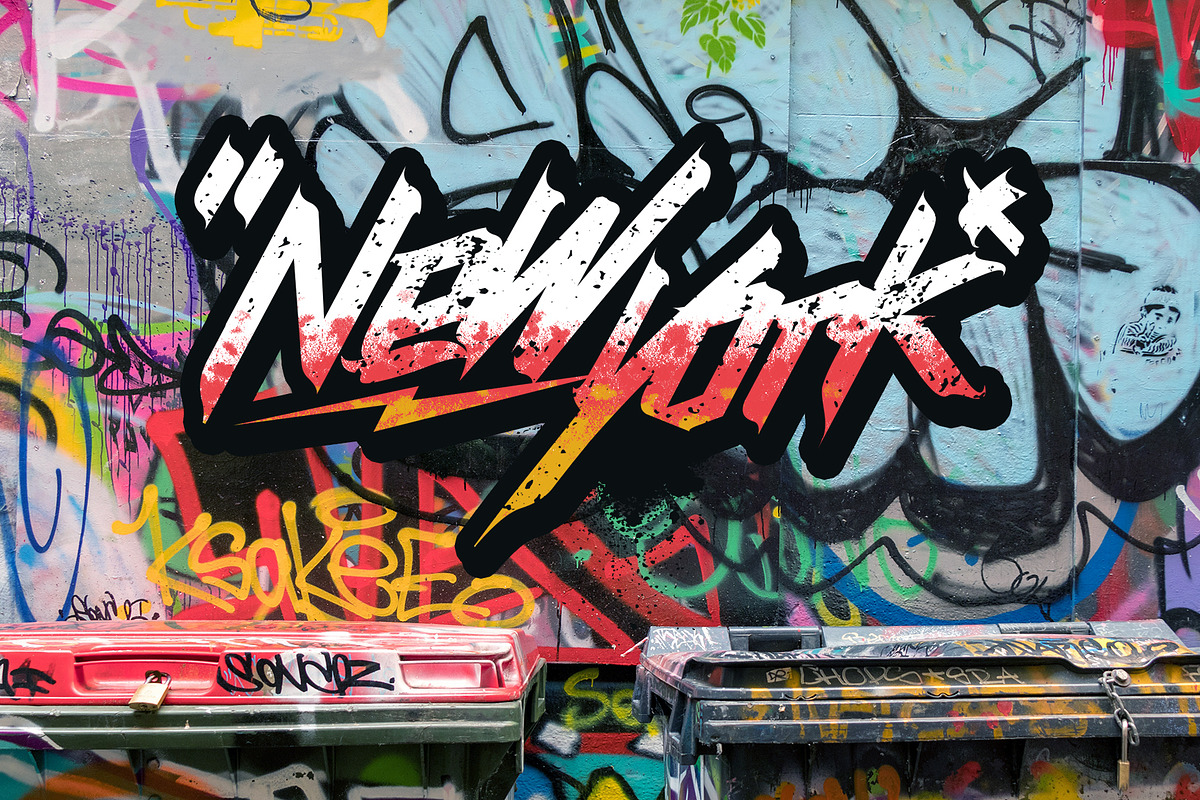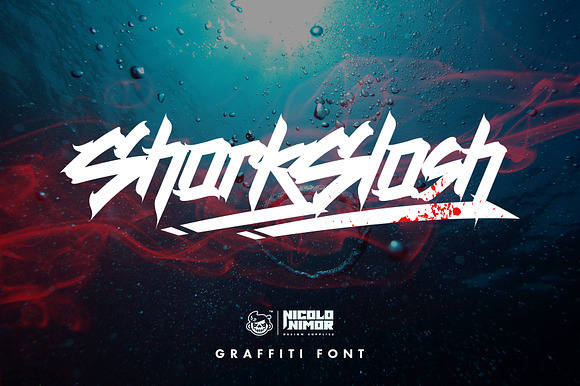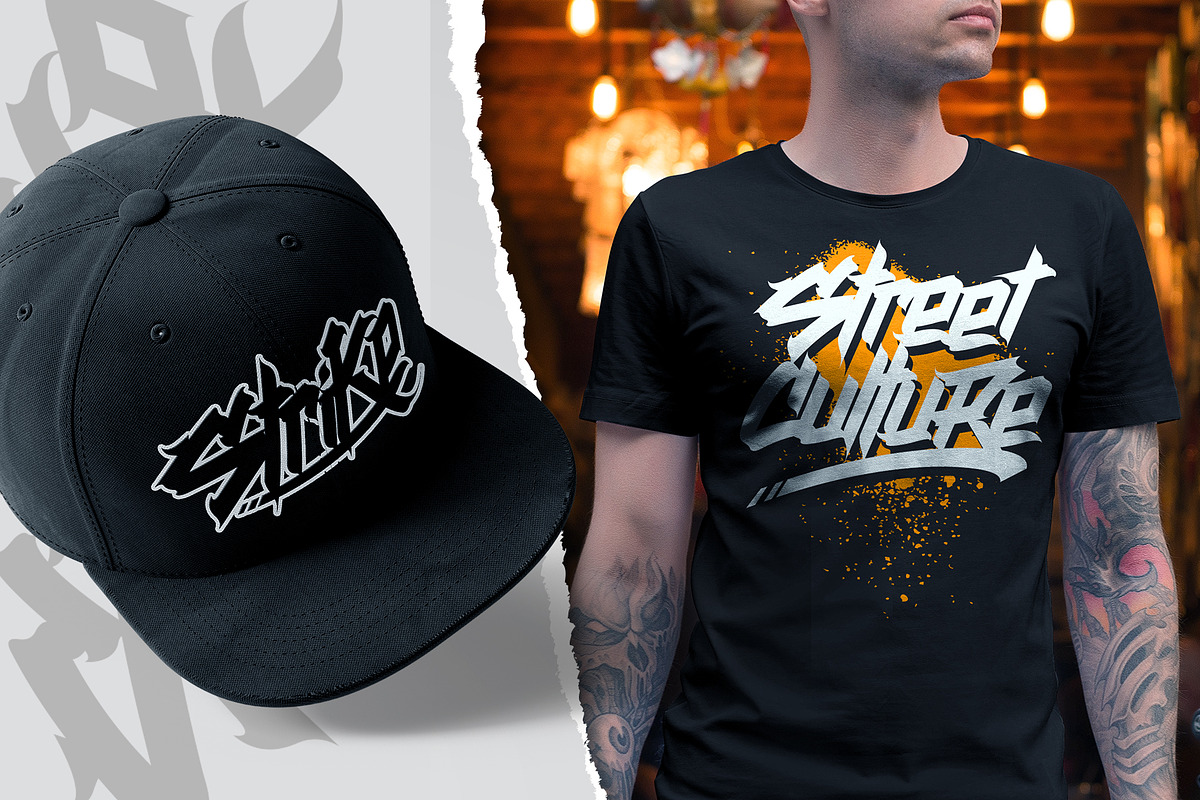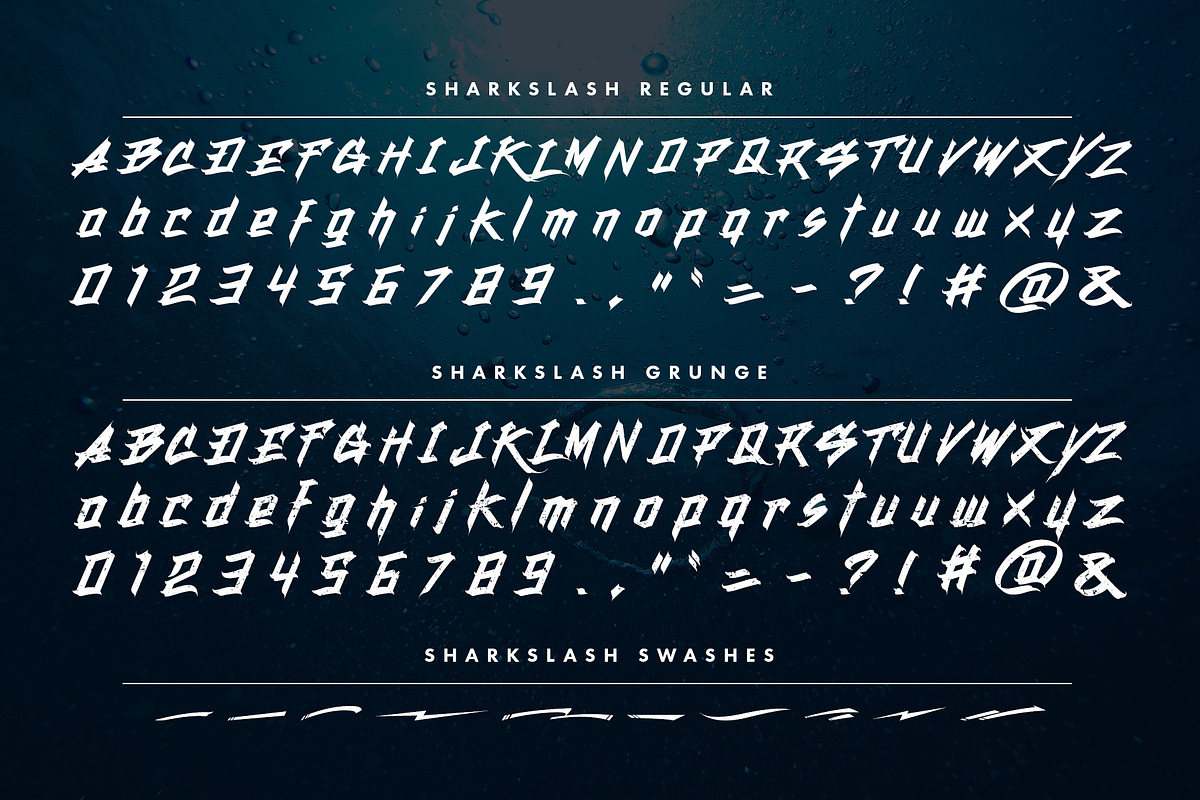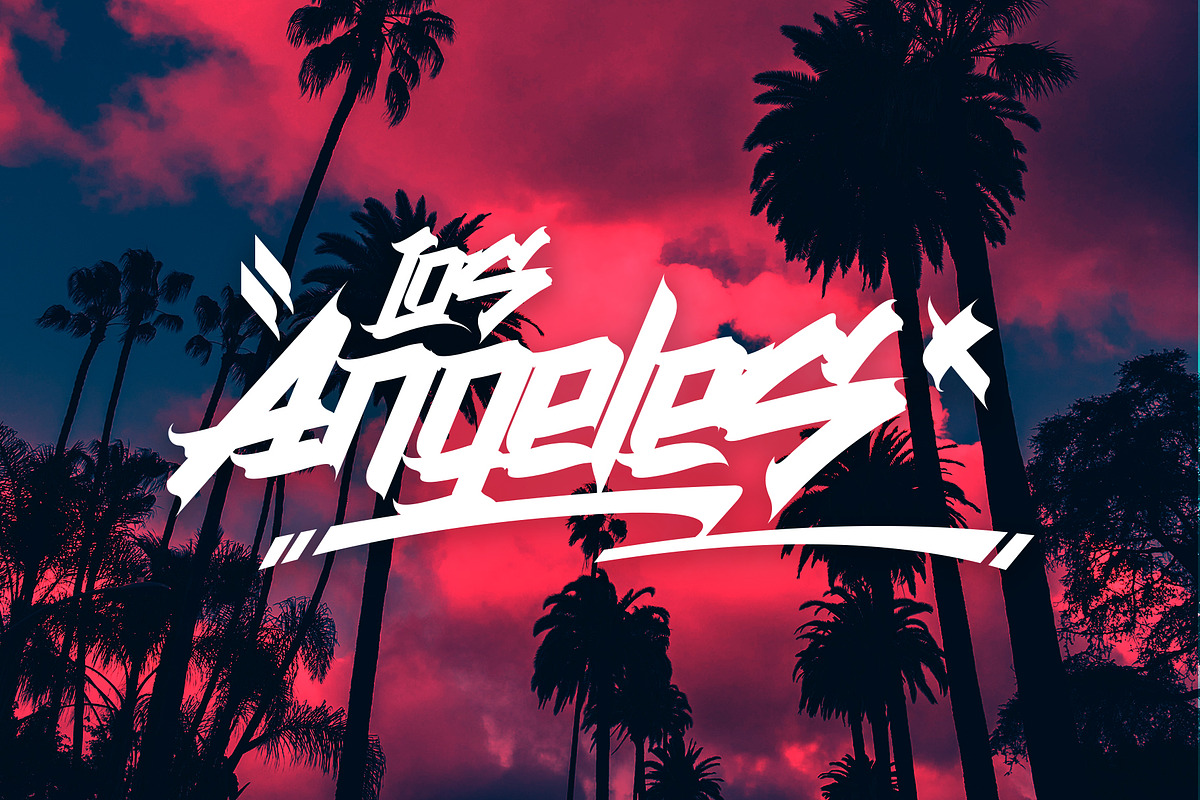
SHARKSLASH Graffiti Font
Introducing the SHARKSLASH graffiti font. Heavily influenced by street art and calligraphy. Great for logos and apparel designs.
SHARKSLASH Graffiti Font by Nicolo Nimor fits naturally into Branding, posters, packaging, typography.